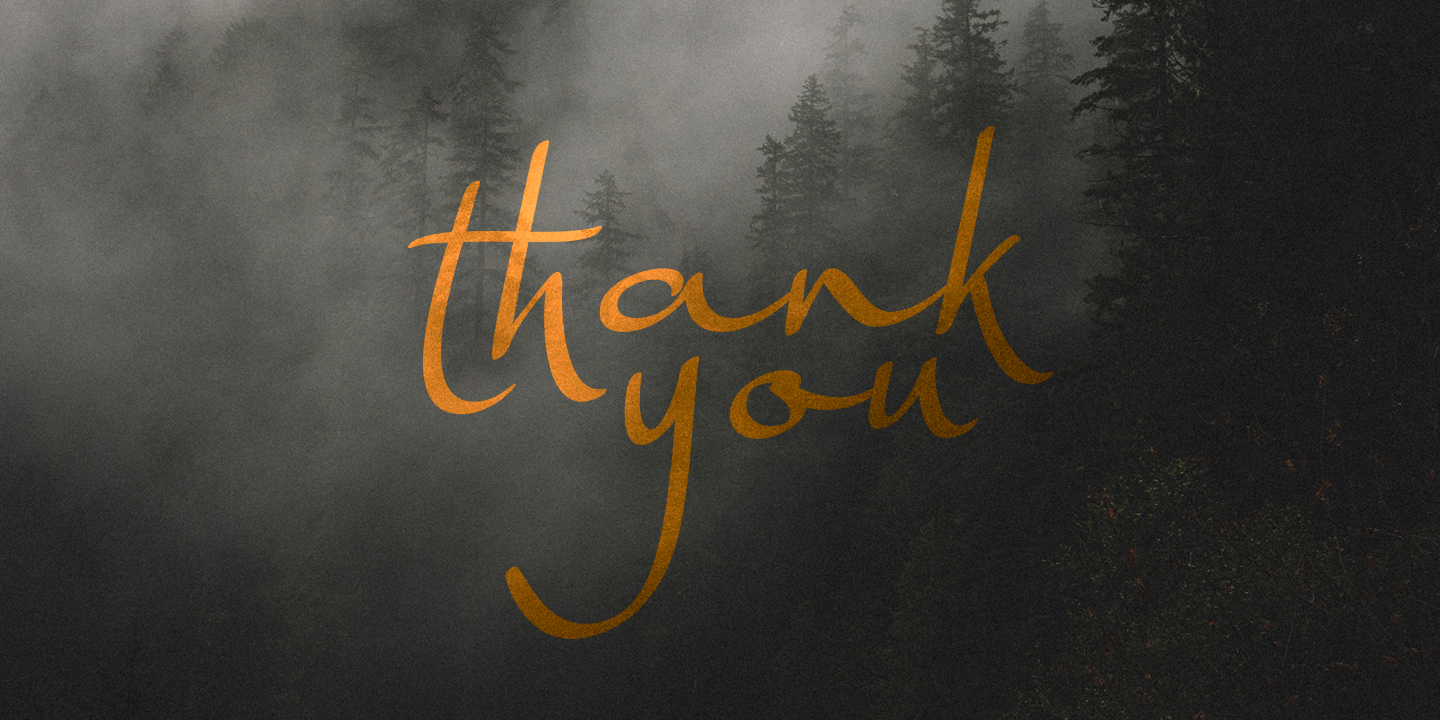
Harmona Font is perfect for balanced design projects including wellness centers, music therapy clinics, meditation studios, harmony-focused lifestyle brands, peaceful yoga retreats, therapeutic healing centers, mindfulness publications, and serene wellness campaigns. This harmonious typeface excels in sound healing practices, musical wellness programs, holistic balance centers, peace advocacy organizations, and projects that celebrate inner harmony and spiritual equilibrium.
What makes Harmona Font exciting is its balanced harmonic character that perfectly captures the essence of musical harmony and spiritual equilibrium. The font features perfectly proportioned letterforms with melodic flow that reflects the mathematical beauty and natural rhythm found in harmonic frequencies. Its peaceful design elements embody the spirit of musical balance and spiritual harmony, making it perfect for projects that need to convey tranquility, balance, and connection to harmonic principles. The carefully crafted harmonic proportions create an atmosphere of musical serenity and balanced wellness.
Harmona Font comes in multiple family variations including balanced, melodic, peaceful, and harmonic styles. Each weight maintains the distinctive harmony character while offering different levels of musical intensity and balanced presence. The font family includes harmonic alternates, melodic ligatures, and balanced variations that provide designers with comprehensive options for creating truly harmonious and musically authentic typographic compositions that celebrate wellness balance.
Whether you're designing wellness branding, creating harmonic marketing materials, or developing peaceful promotional graphics, Harmona Font Free Download provides the perfect typographic foundation for projects that celebrate harmonic excellence and balanced living. This remarkable typeface transforms ordinary text into compelling expressions of musical wisdom and harmonic peace. Download this harmonious font today and balance your design projects with the musical elegance and harmonic authenticity that captures the essential spirit of wellness harmony and spiritual equilibrium.